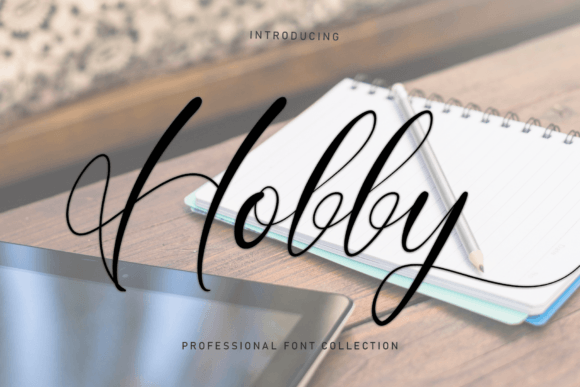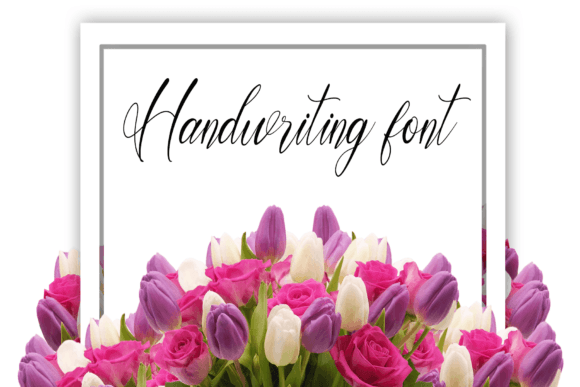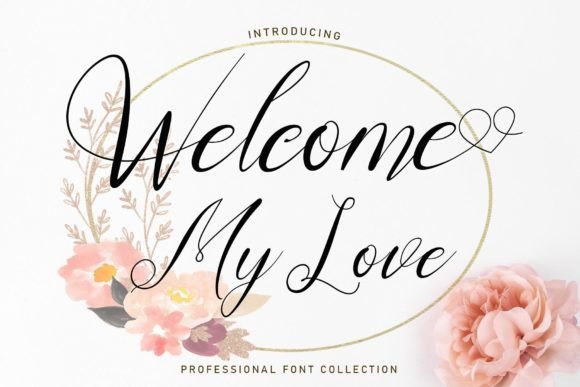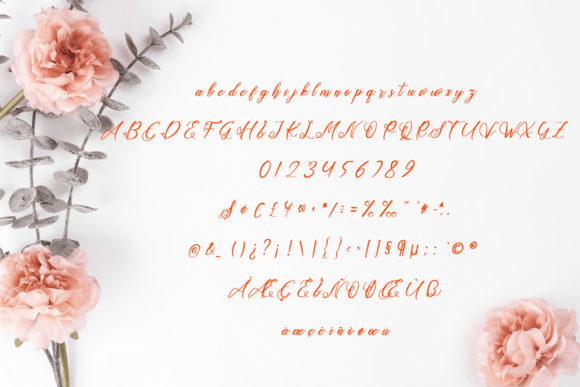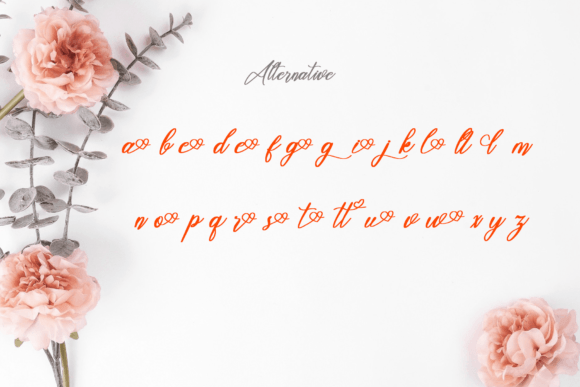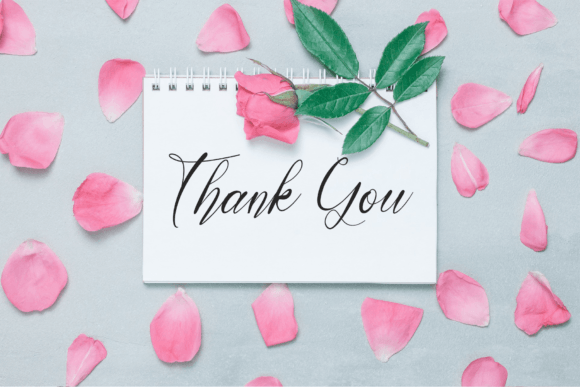
Hobby Font
About Hobby Font
The Dellgado font exudes a charming and elegant aura, making it a stunning choice for a variety of design applications. Its exquisite handwritten touch lends itself beautifully to wedding invitations, thank-you cards, quotes, greeting cards, logos, business cards, and any other project that requires a touch of sophistication.
In the realm of wedding invitations, The Dellgado font brings an enchanting and refined quality. The elegant handwritten style adds a personalized touch, contributing to the romantic and memorable atmosphere of special occasions. The font’s charm enhances the visual appeal of invitations, making them truly captivating.
For thank-you cards and greeting cards, The Dellgado font stands out with its exquisite design. The delicate letterforms create a sense of grace and elegance, ensuring that your messages are conveyed with style and warmth. The font’s versatility makes it suitable for expressing sentiments in a tasteful and sophisticated manner.
In logo design and business cards, The Dellgado font serves as a mark of charm and elegance. The exquisite handwritten script adds a touch of personality and sophistication, making logos and business cards more memorable and visually appealing.
An advantageous feature of The Dellgado font is its PUA encoding, allowing easy access to a rich set of glyphs and swashes. This feature provides users with the flexibility to explore and incorporate various character combinations and design elements effortlessly. The inclusion of swashes enhances the font’s versatility, allowing for creative customization and expression.
In essence, The Dellgado font is more than just a typeface; it’s a design tool that brings a charming and elegant touch to your projects. Whether you’re working on invitations, cards, logos, or other creative endeavors, let The Dellgado font be the exquisite choice that elevates your designs with sophistication and grace.